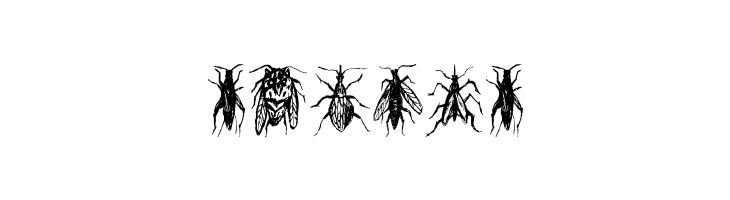
• Buggys Regular Font
( Vladimir Nikolic - www.coroflot.com/vladimirnikolic )
Illustrative font featuring detailed bug drawings as characters.
It refreshes regularly based on real-time downloads and engagement. Check back often to spot rising stars before they’re everywhere.